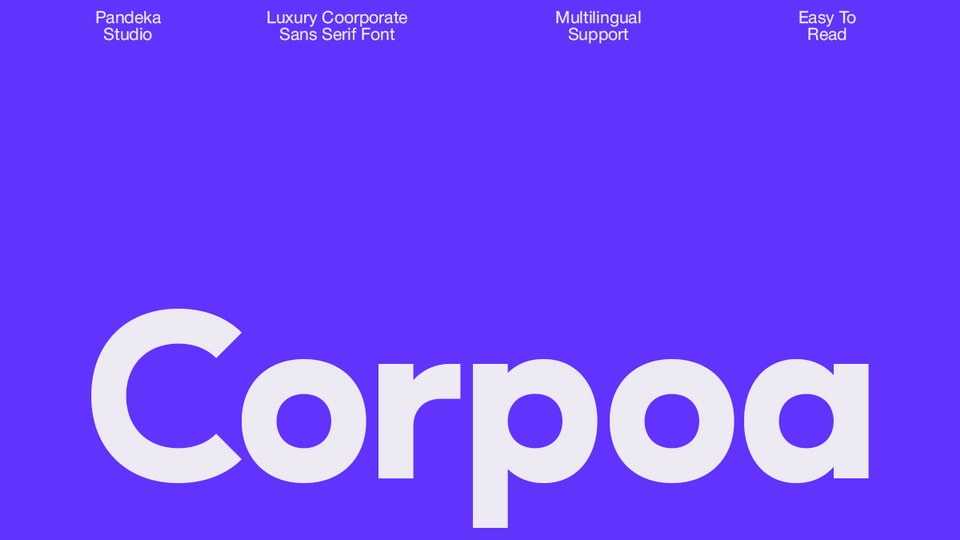
Download Corpoa font, a contemporary rounded sans-serif typeface that fuses bold character with a friendly, approachable tone with its soft terminals and geometric structure.